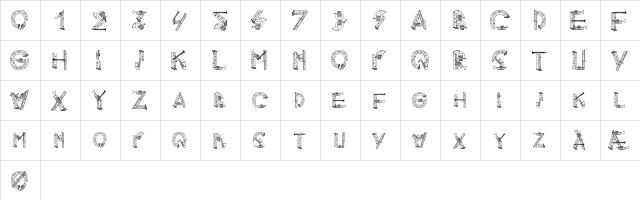
AlphaMusicMan Regular
Design Context for AlphaMusicMan Typeface
AlphaMusicMan is a composed and adaptable typeface that performs quietly and consistently across a wide range of design contexts.